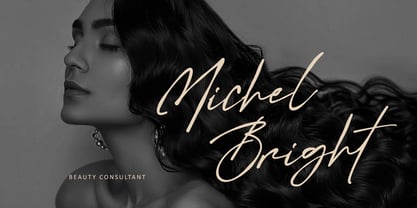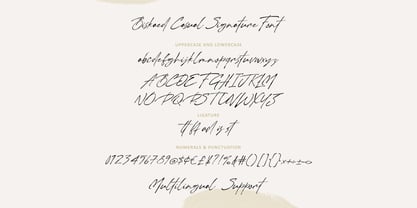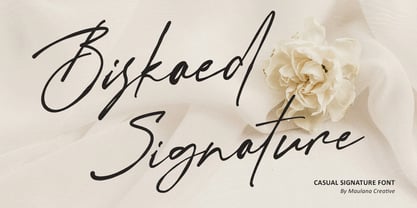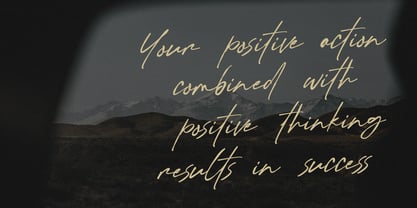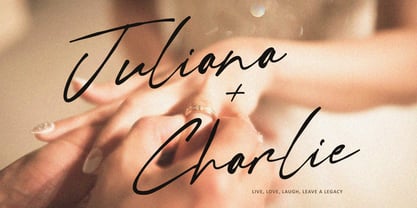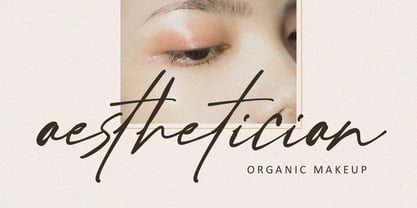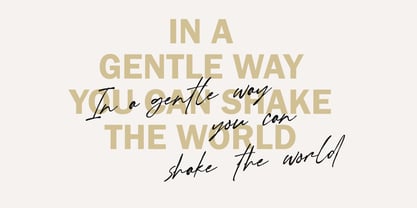
MC Biskaed
von Maulana Creative
Die Schriftfamilie MC Biskaed wurde von Gilang Maulana entworfen und von Maulana Creative veröffentlicht. MC Biskaed enthält 1 Stile. Mehr über diese Familie
Elevate your designs with the effortless elegance of Biskaed. Biskaed is a premium casual signature font designed to bring a personal, handcrafted touch to your creative projects. With its flowing lines, natural pressure strokes, and modern aesthetic, this font perfectly mimics real handwriting. Whether you are building a high-end brand or designing heartfelt stationery, Biskaed offers the versatility and style you need. Why Choose Biskaed? Natural Flow: Includes ligatures and alternates to maintain a seamless, organic look. Versatile Style: Perfectly suited for luxury branding, wedding invitations, fashion photography overlays, and social media quotes. Full Professional Set: Comes with uppercase, lowercase, numerals, punctuation, and multi-language support. Timeless Aesthetic: A balance of "casual" and "sophisticated" that never goes out of style.
Designer: Gilang Maulana
Foundry: Maulana Creative